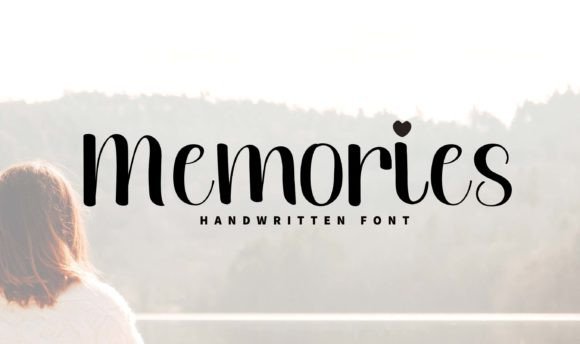
Introducing Memories Font: The Key to Unforgettable Designs
Unleash the charm of Memories Font, a captivating handwritten font that will leave a lasting impression on your creative projects. With its enchanting curves and playful strokes, Memories Font adds a touch of warmth and personality to any design.
Crafted by the talented team at Nurstudio, Memories Font is a versatile masterpiece that seamlessly adapts to a wide range of applications. Whether you're creating heartfelt greeting cards, inspiring quotes, eye-catching logos, or professional business cards, Memories Font is your go-to choice for injecting a handwritten touch that resonates with your audience.
Embrace the beauty of Memories Font and embark on a creative journey filled with endless possibilities. Its whimsical nature lends itself perfectly to designs that demand a personal touch, such as wedding invitations, heartfelt letters, and personalized gifts. Let Memories Font carry your message with grace and charm, leaving a lasting impact on the hearts of those who behold it.
Key Features of Memories Font:
- A captivating handwritten font that exudes warmth and personality
- Versatile design suitable for a wide range of applications
- Perfect for greeting cards, quotes, logos, business cards, and more
- Adds a personal touch to wedding invitations, letters, and gifts
- Embraces the art of calligraphy, bringing a touch of elegance to your designs
Unlock the true potential of Memories Font and witness the transformation of your creative projects. Its ability to connect with your audience on a deeper level makes it an invaluable asset for designers, marketers, and creatives alike. Embrace the beauty of Memories Font today and let your designs speak volumes, leaving behind a legacy of unforgettable impressions.